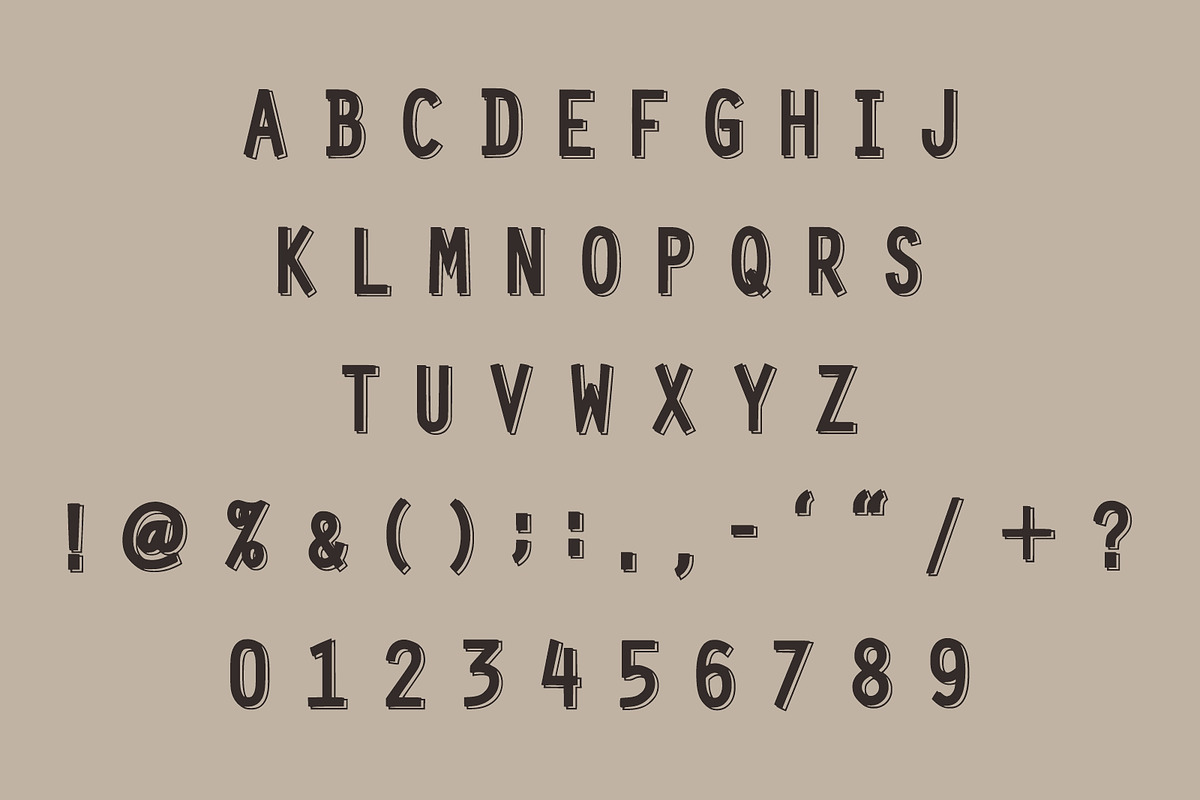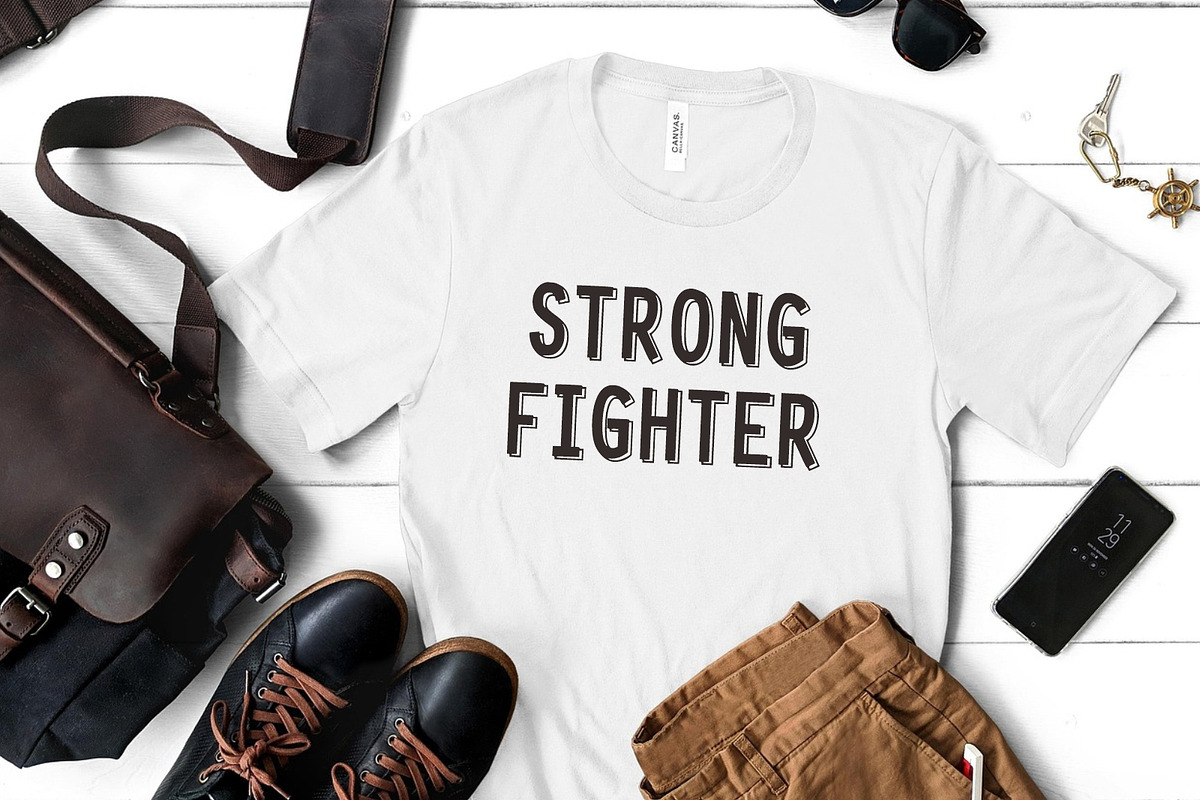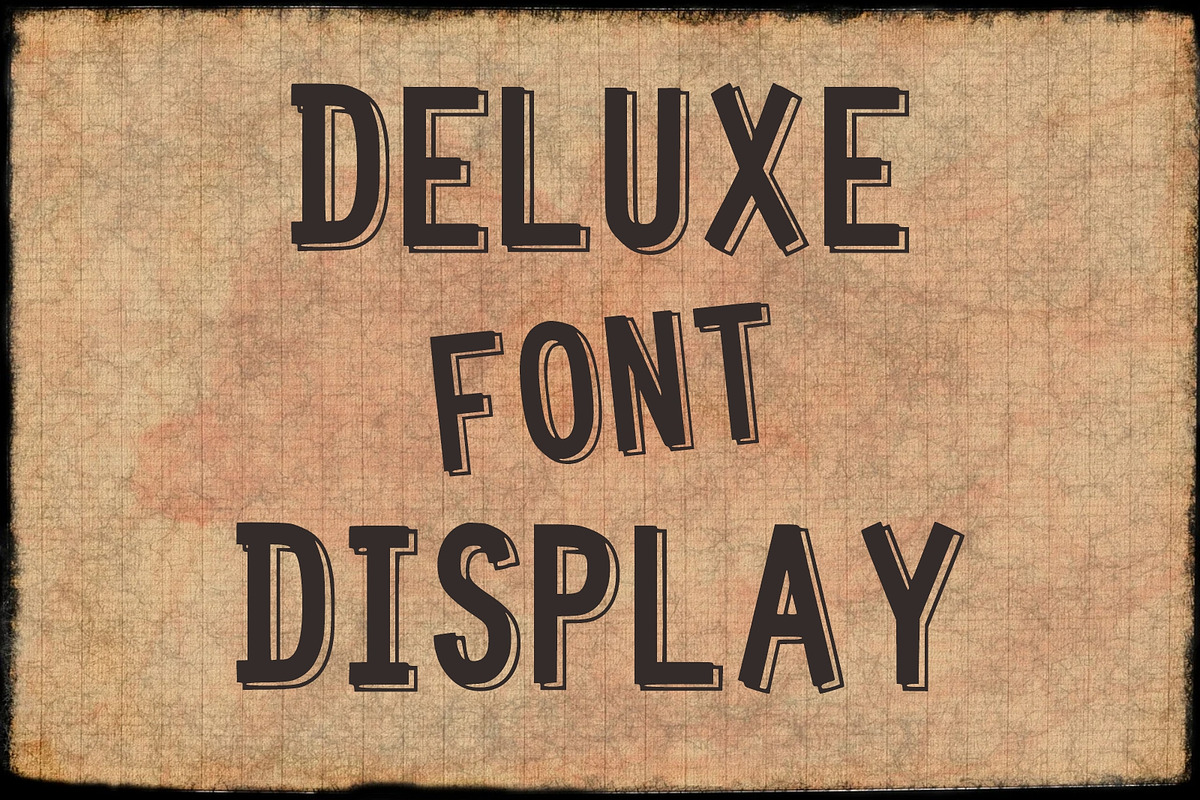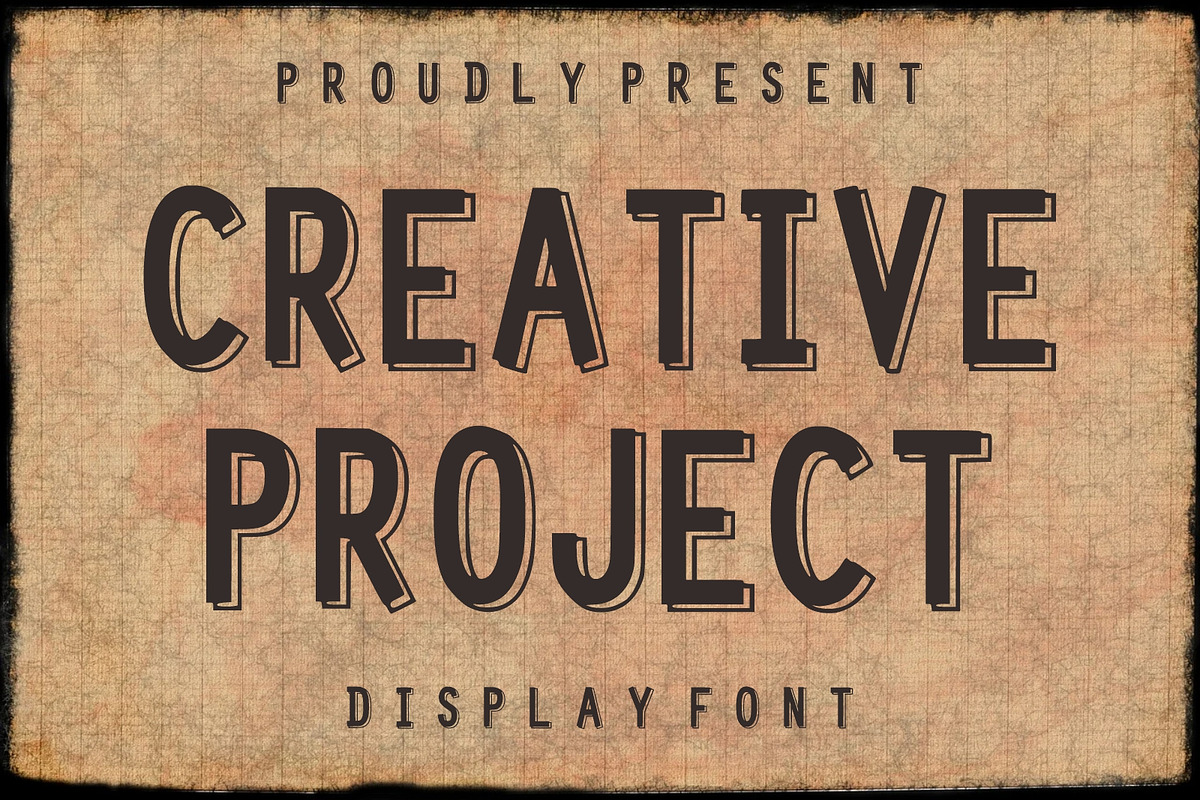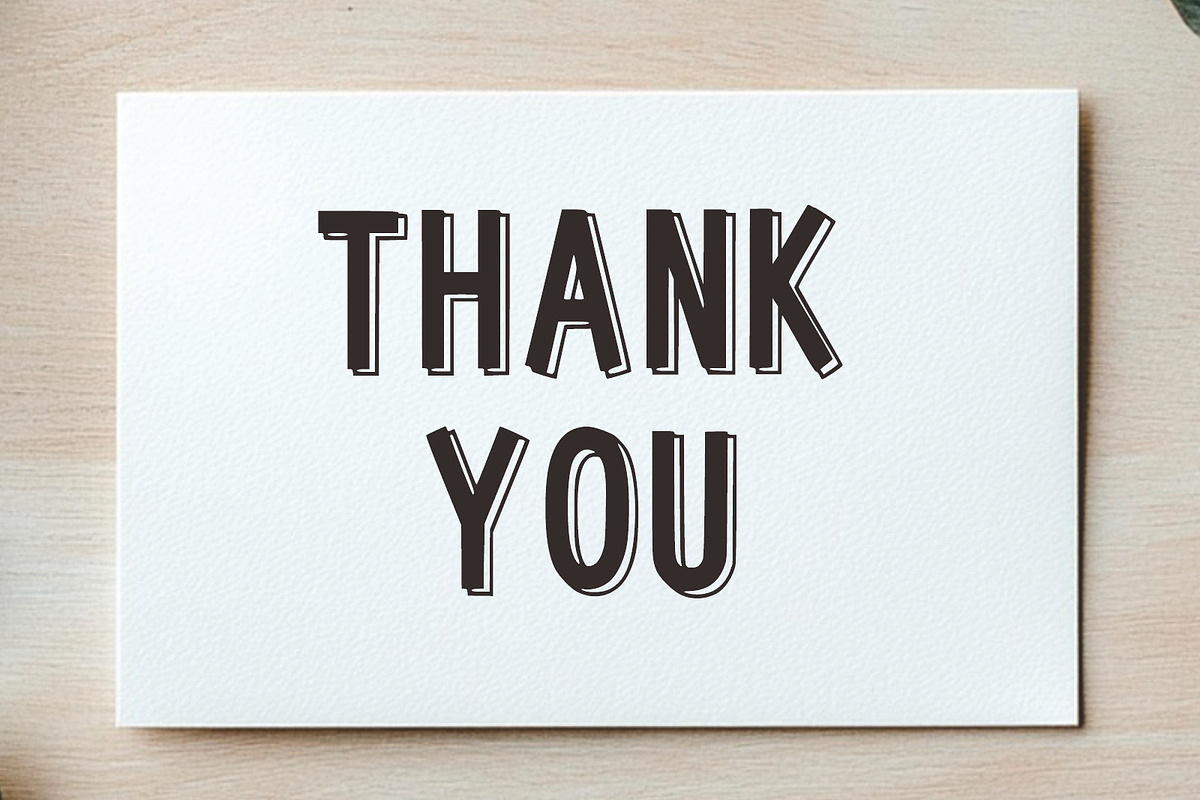
Creative Project
Inject a sense of rugged, industrial charm into your work with the Creative Project font, a bold display typeface designed for maximum impact.
This Creative Project typeface features a unique “shadowed” or “offset” effect, giving each character a 3-back dimensional depth that pops off the page. The Creative Project font is the perfect choice for vintage-inspired posters, workshop branding, and any project that requires a sturdy, reliable, and hardworking aesthetic.
The Creative Project typeface excels in large-scale applications where its structural details can truly be appreciated.
Whether you are designing a logo for a craft brewery or a header for a DIY blog, the Creative Project font provides a strong visual foundation that feels both timeless and modern. To enhance its “blue-collar” charm, pair it with textured backgrounds like kraft paper or rusted metal, and keep your color palette simple and bold.